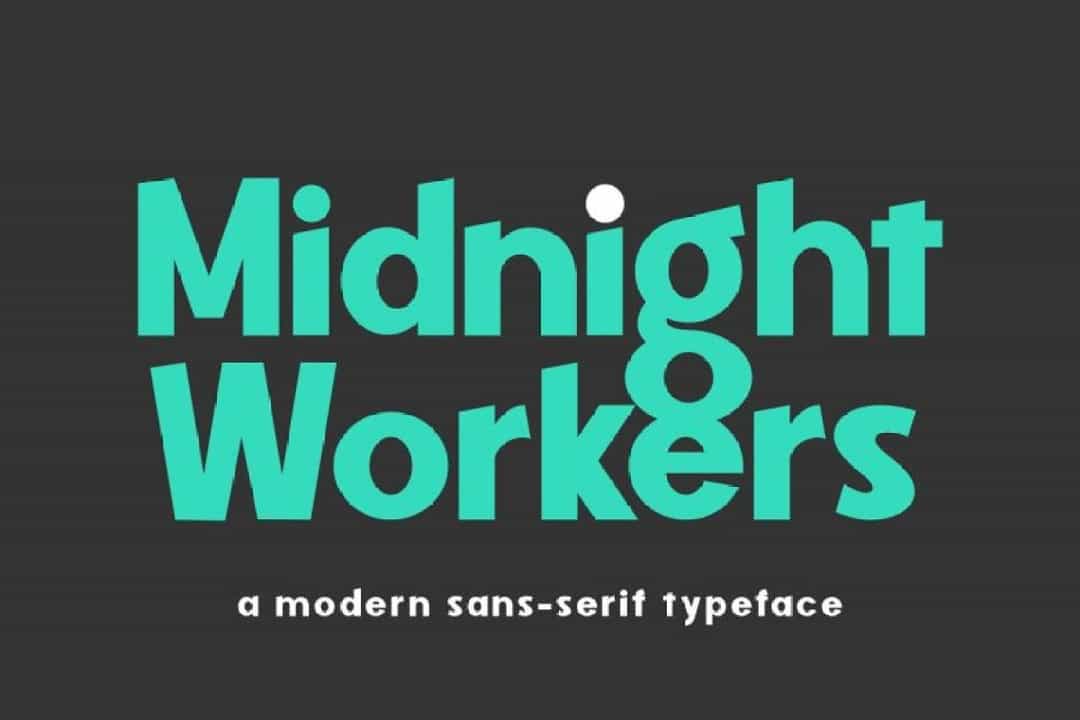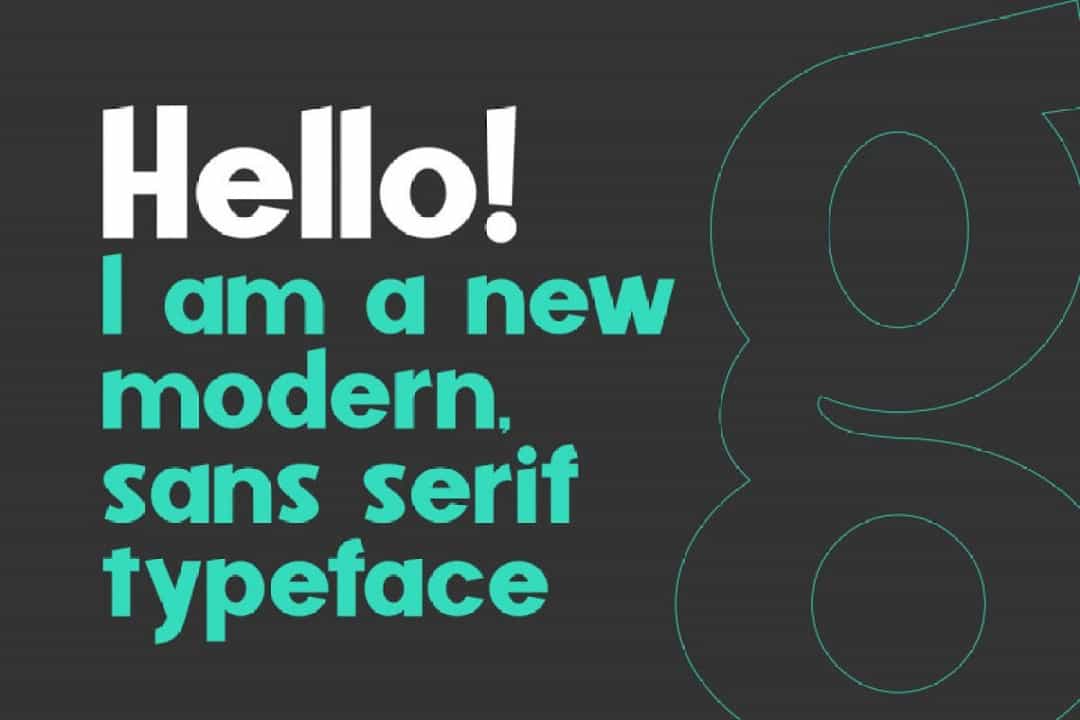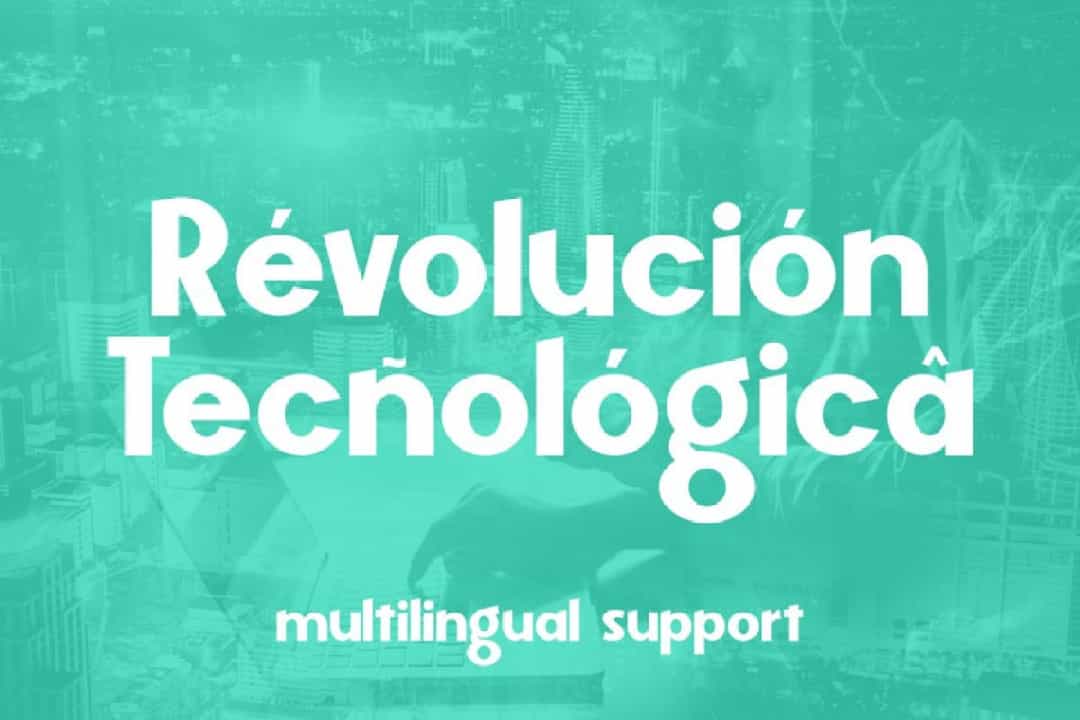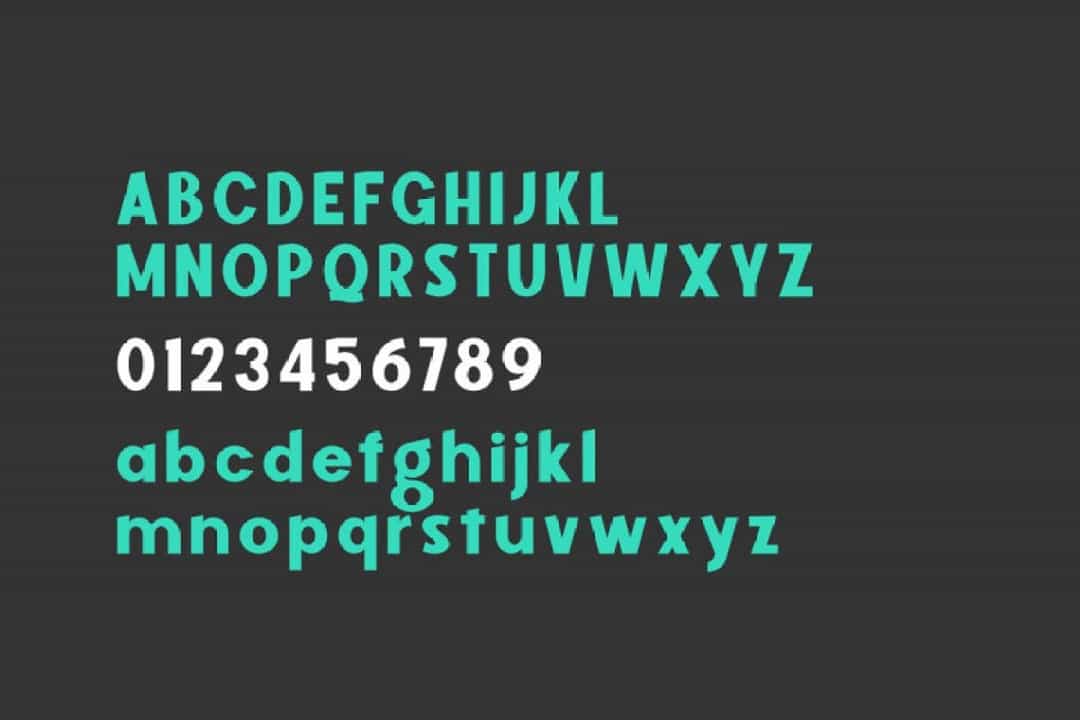
Midnight Workers is a contemporary sans-serif font that is designed especially for the working people who work in the night shift to earn for their family. Due to its plain and yet versatile structure, it is suitable for headlines and logos as well as other graphic items that have to be formal and at the same time catch the eye.